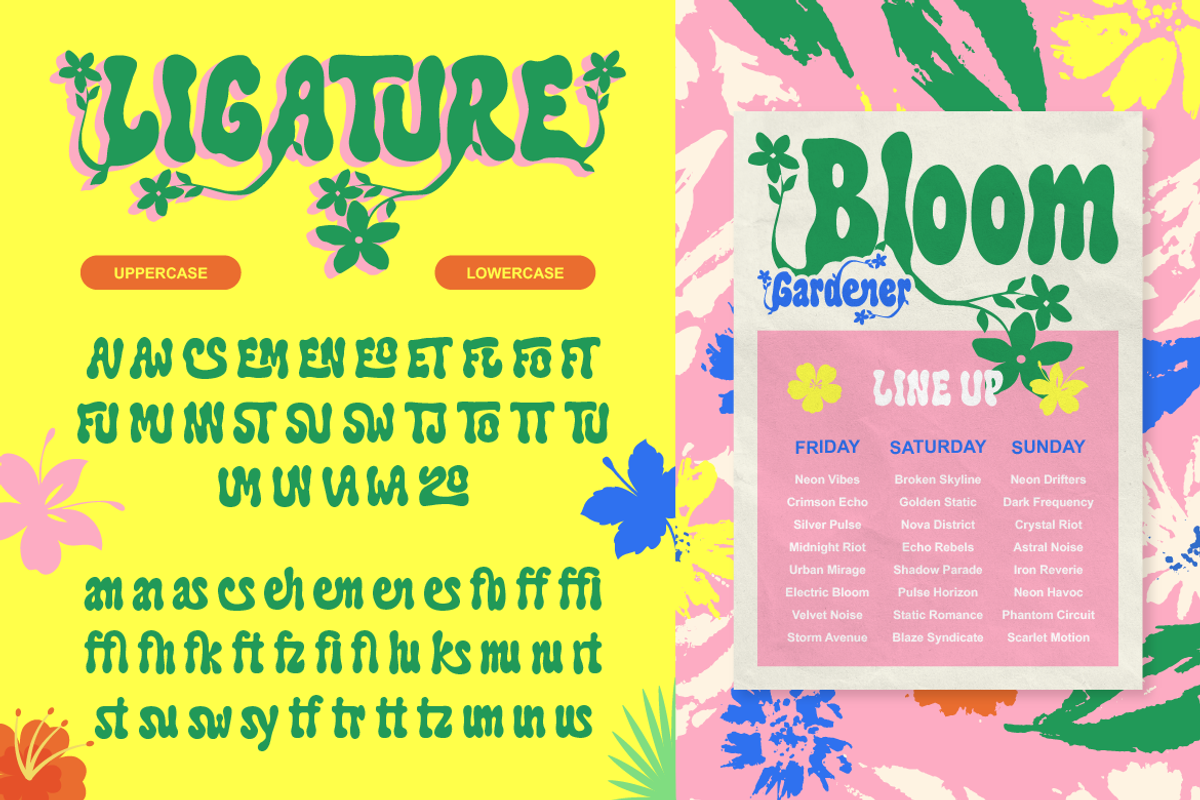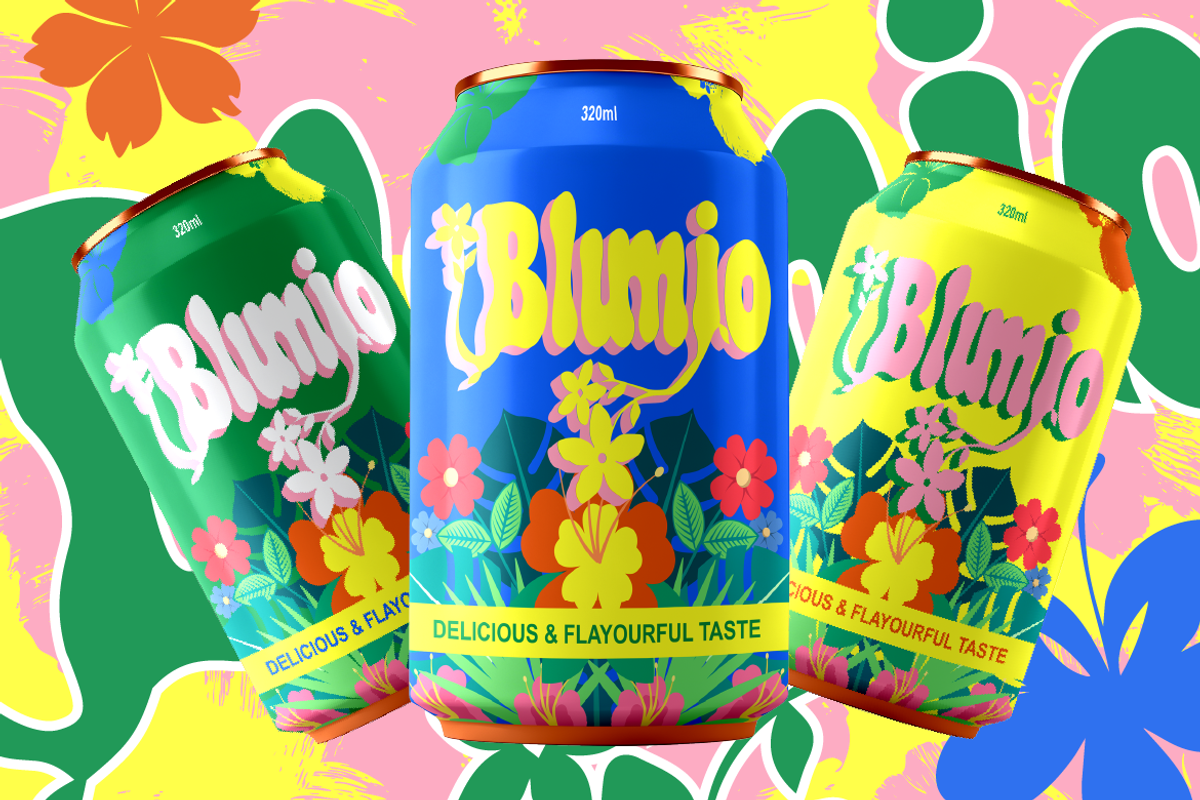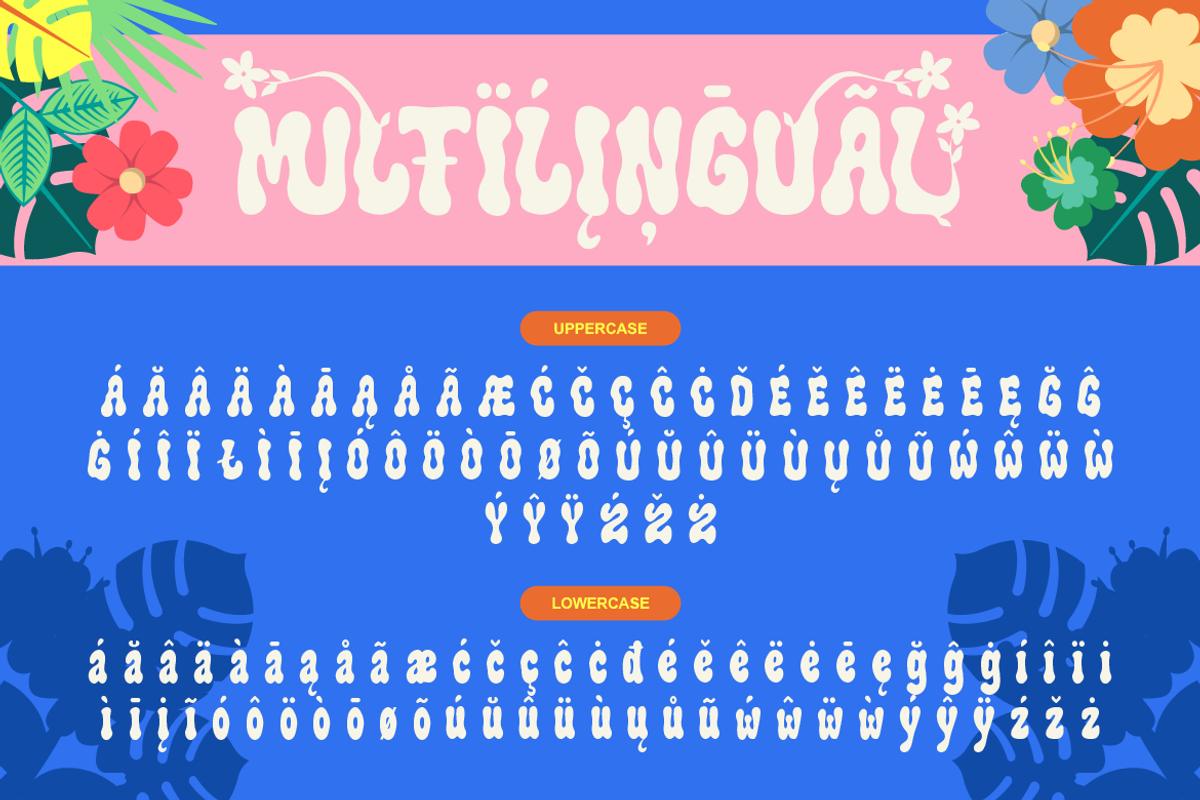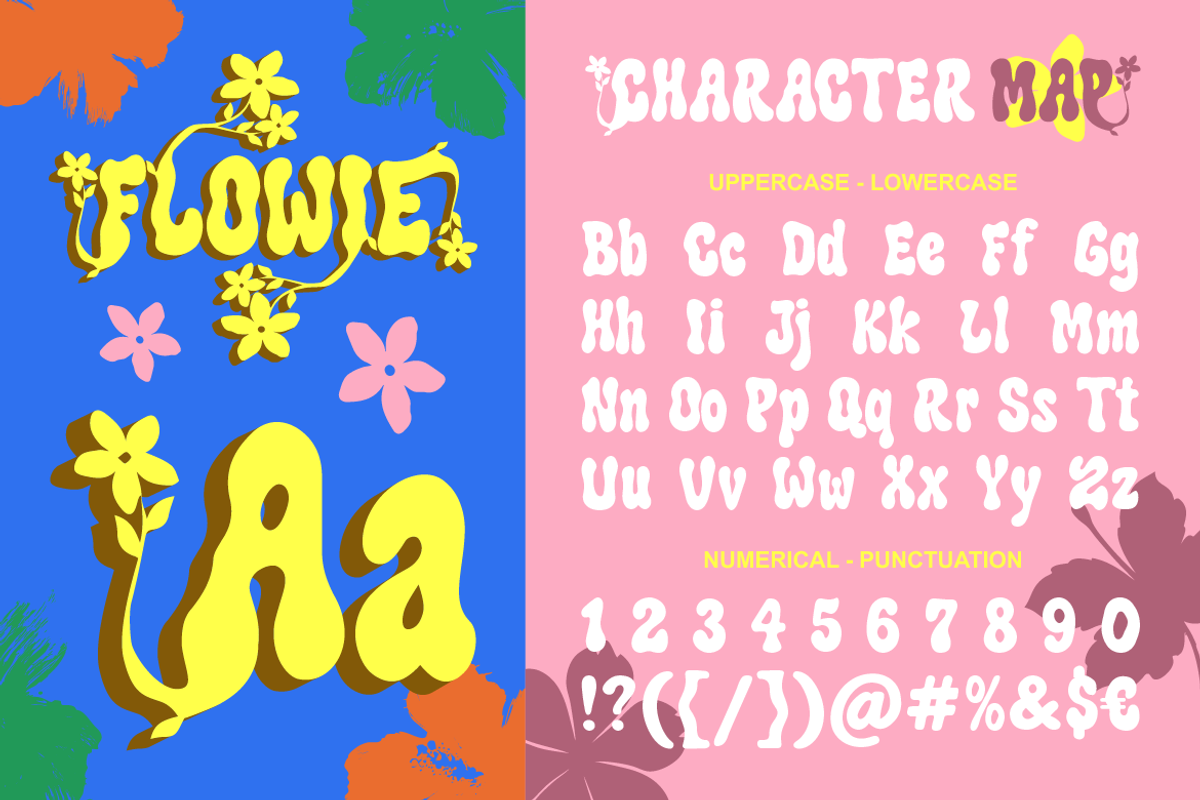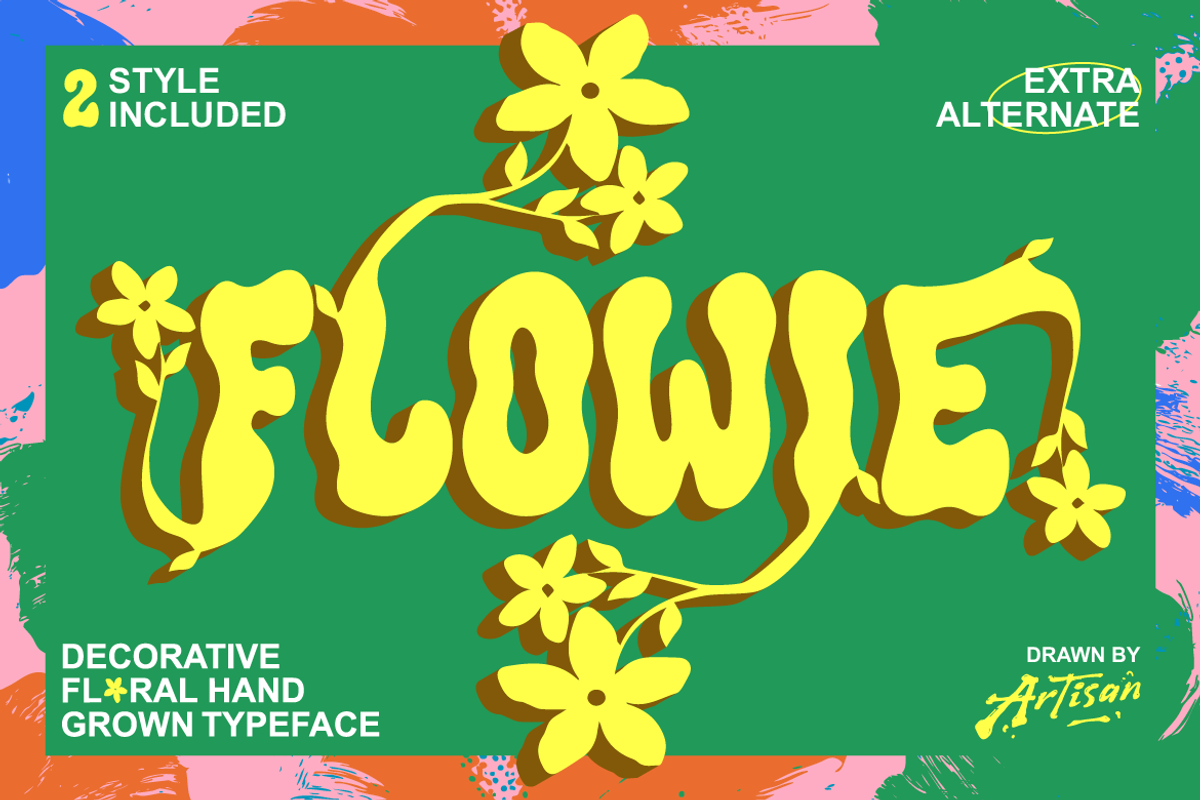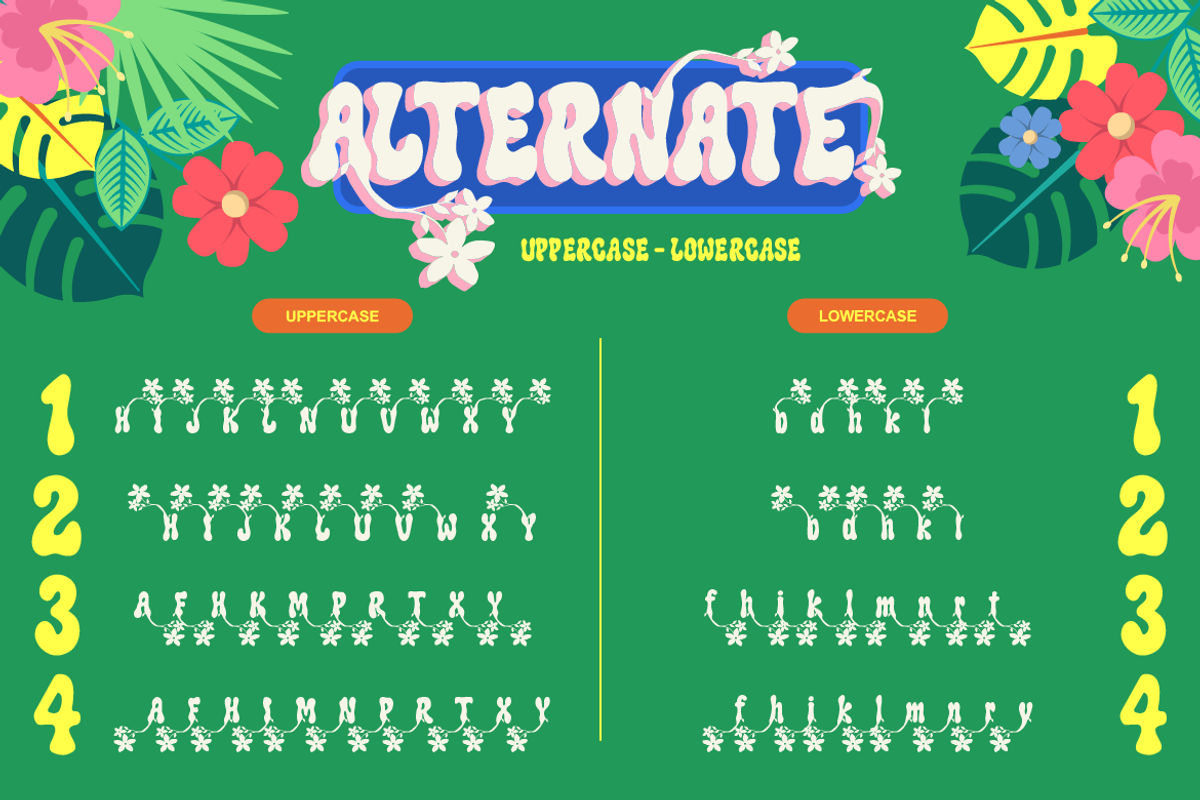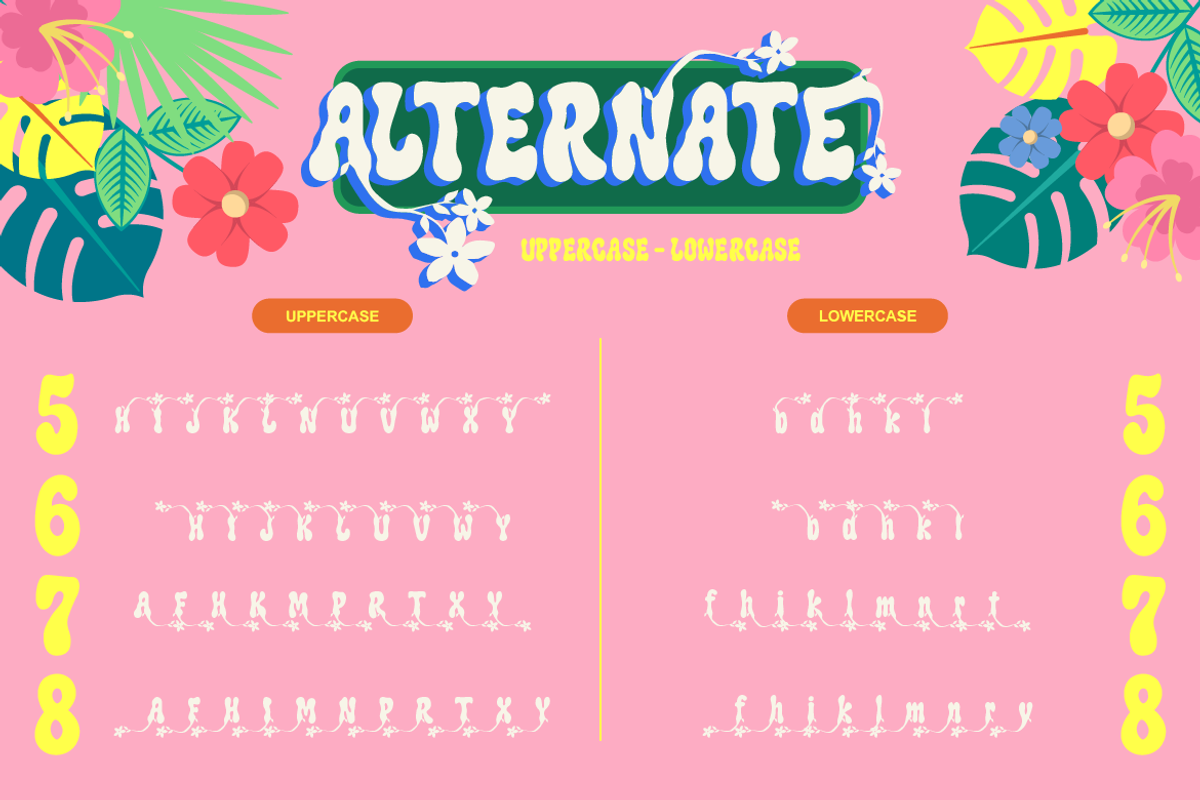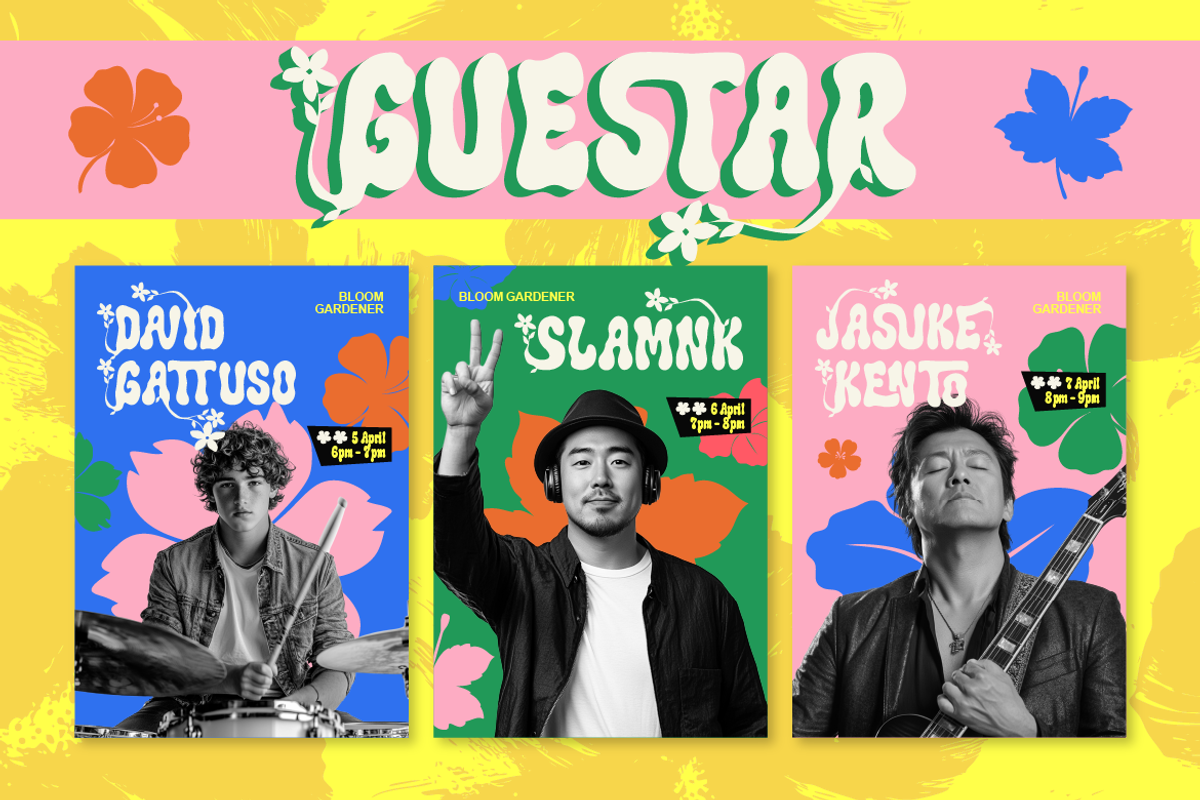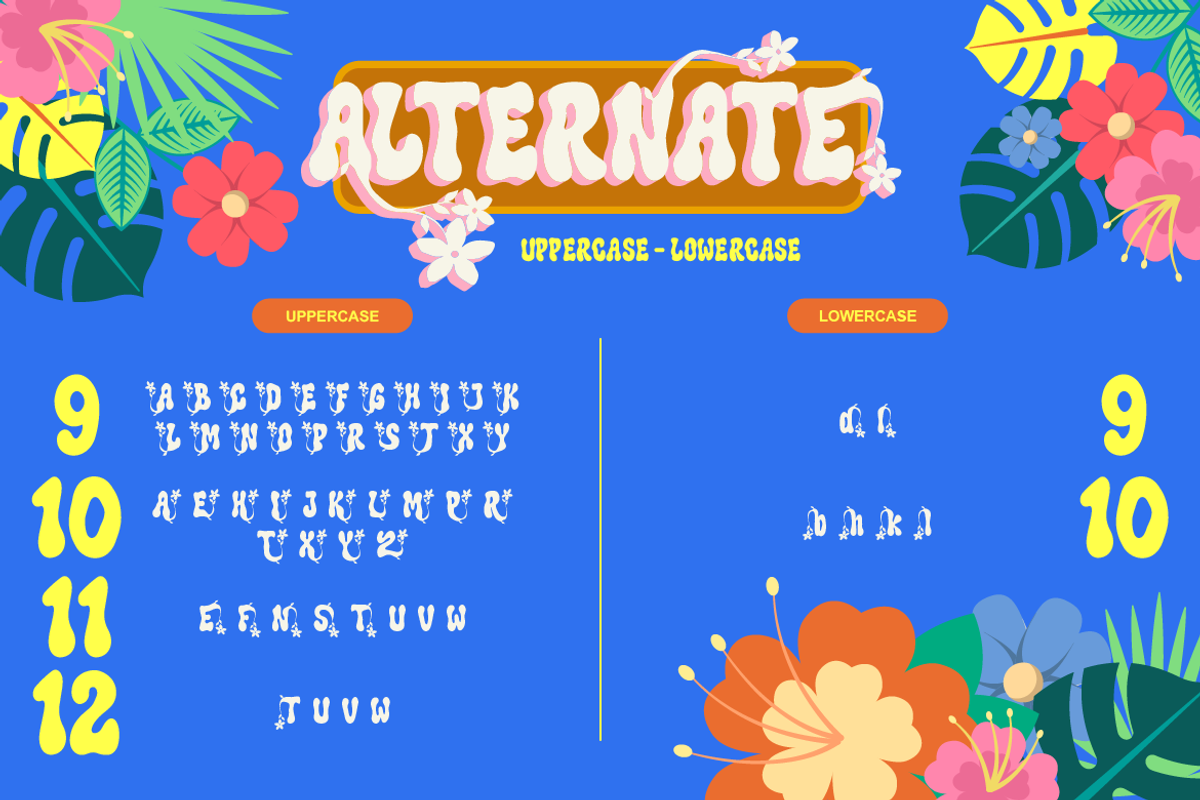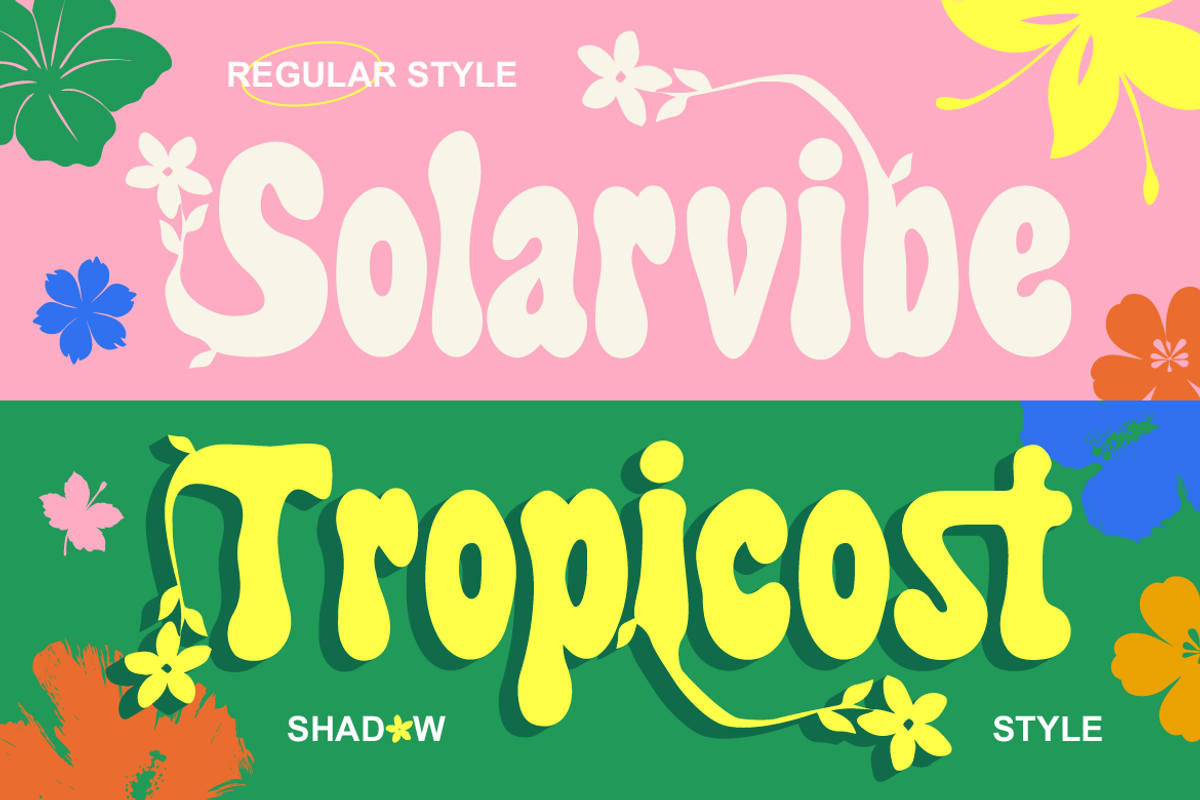
Flowie
Say hello to Flowie, a playful and charming decorative font inspired by blooming flowers and hand-drawn lettering. With its soft curves, organic shapes, and cute floral details, Flowie brings a fresh, joyful, and tropical vibe to your designs. This font is perfect for creating eye-catching designs that feel fun, friendly, and full of personality. Whether you're working on posters, branding, packaging, or social media content, Flowie will instantly make your work stand out. Flowie comes with 2 styles (Regular & Shadow) plus extra alternates that allow you to mix and match for a more natural and dynamic look. The floral elements are beautifully integrated into the letters, giving your typography a unique handcrafted feel.
- Poster & music festival designs
- Branding & logo projects
- Packaging (especially food & beverage, summer, tropical themes)
- Social media graphics
- Kids & playful designs
- Quotes, stickers, and merchandise